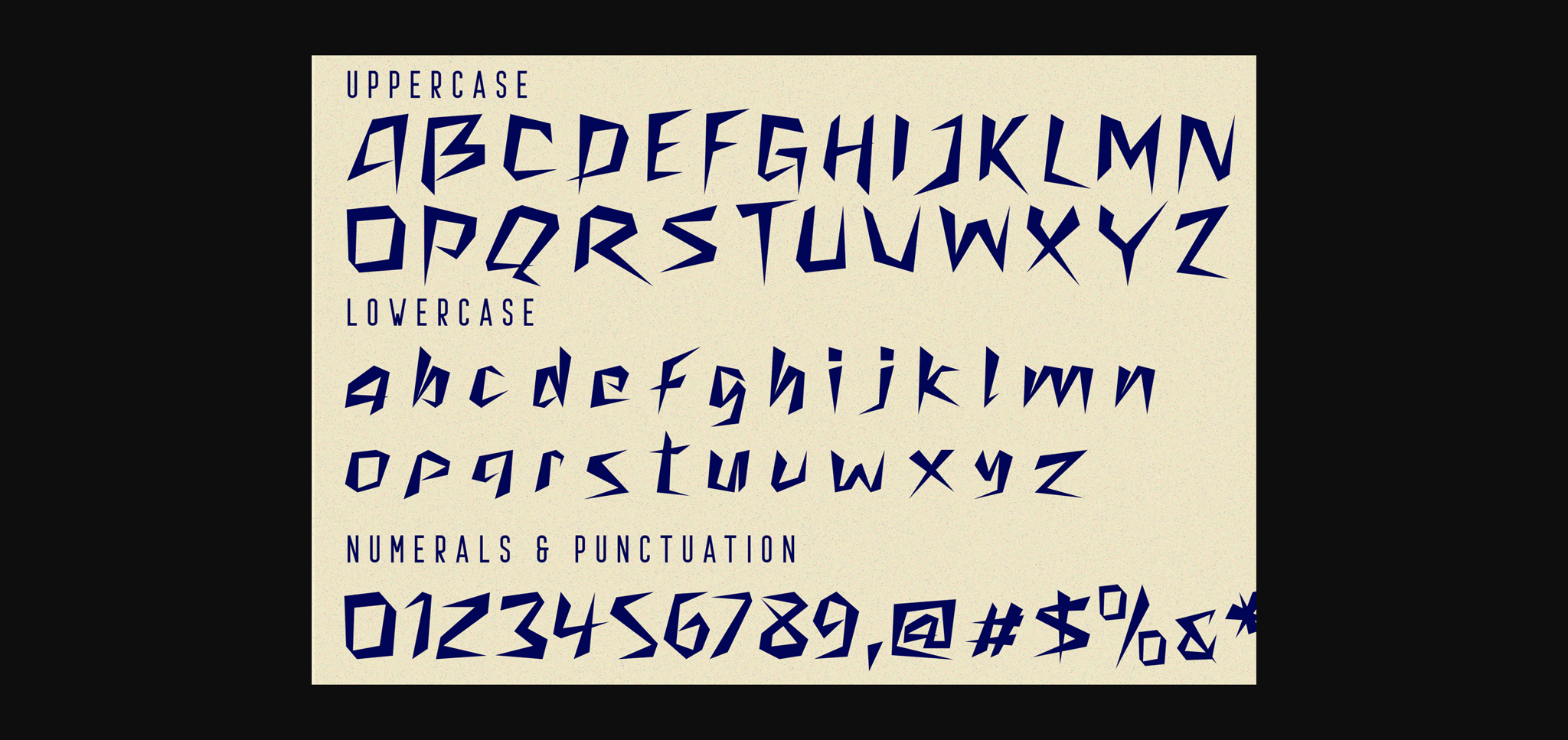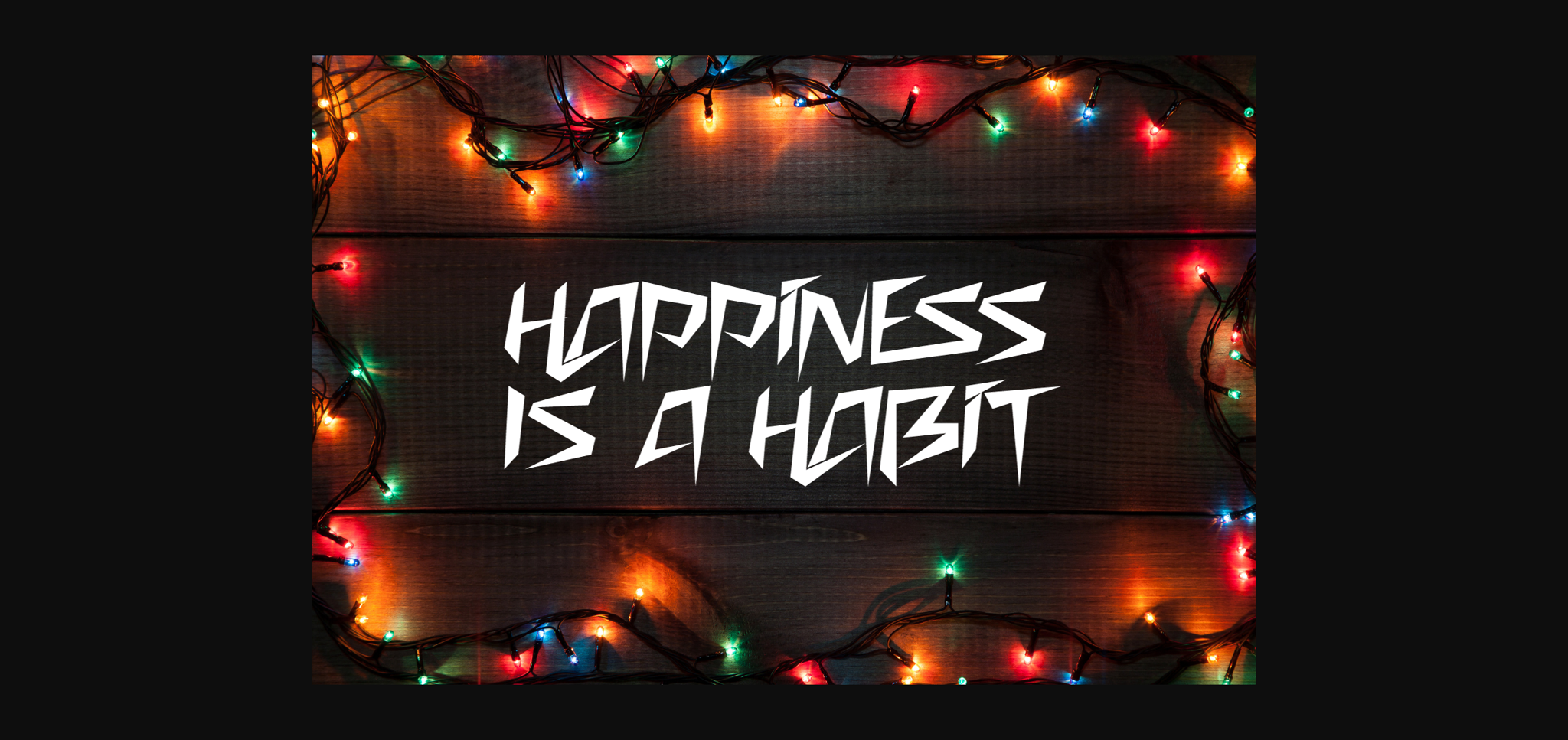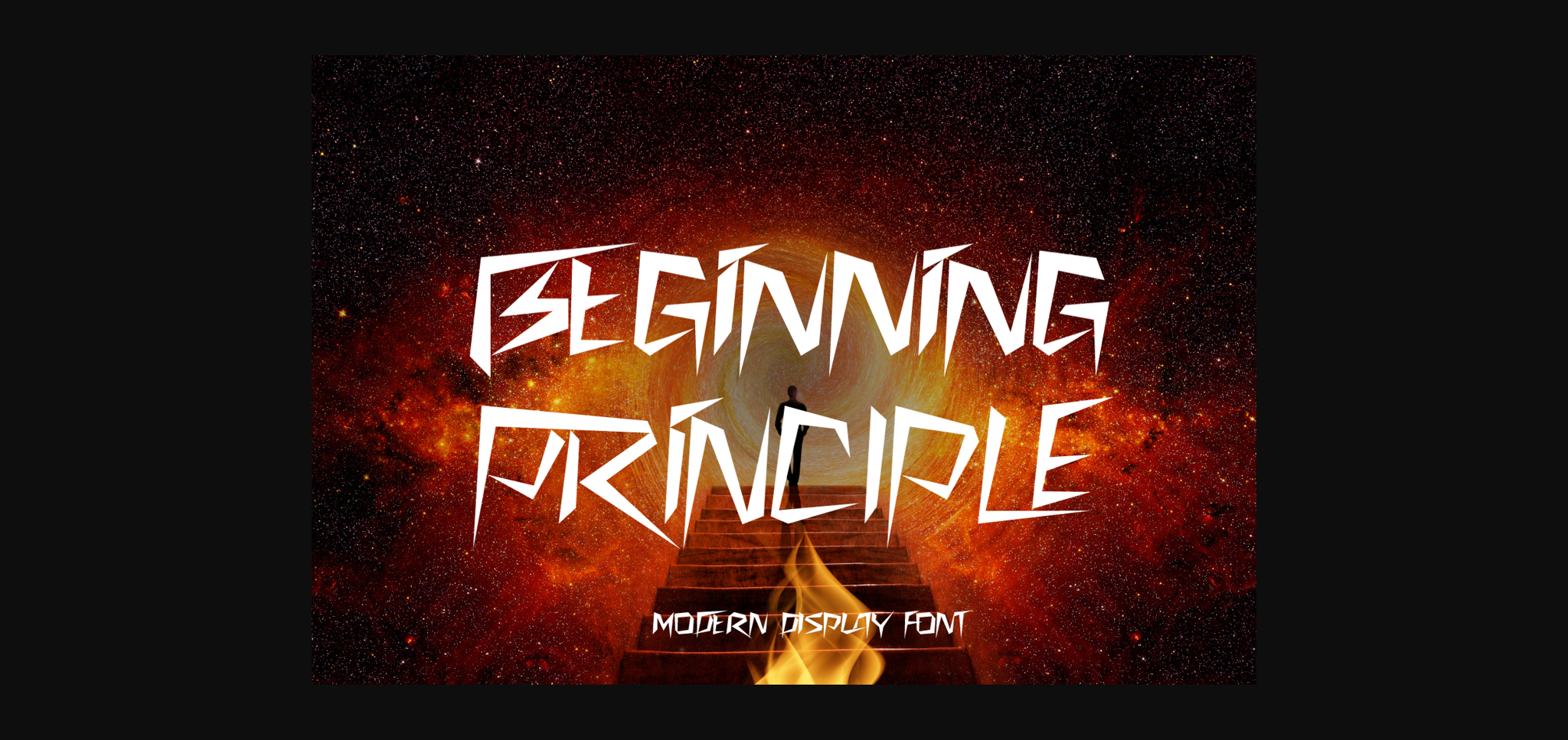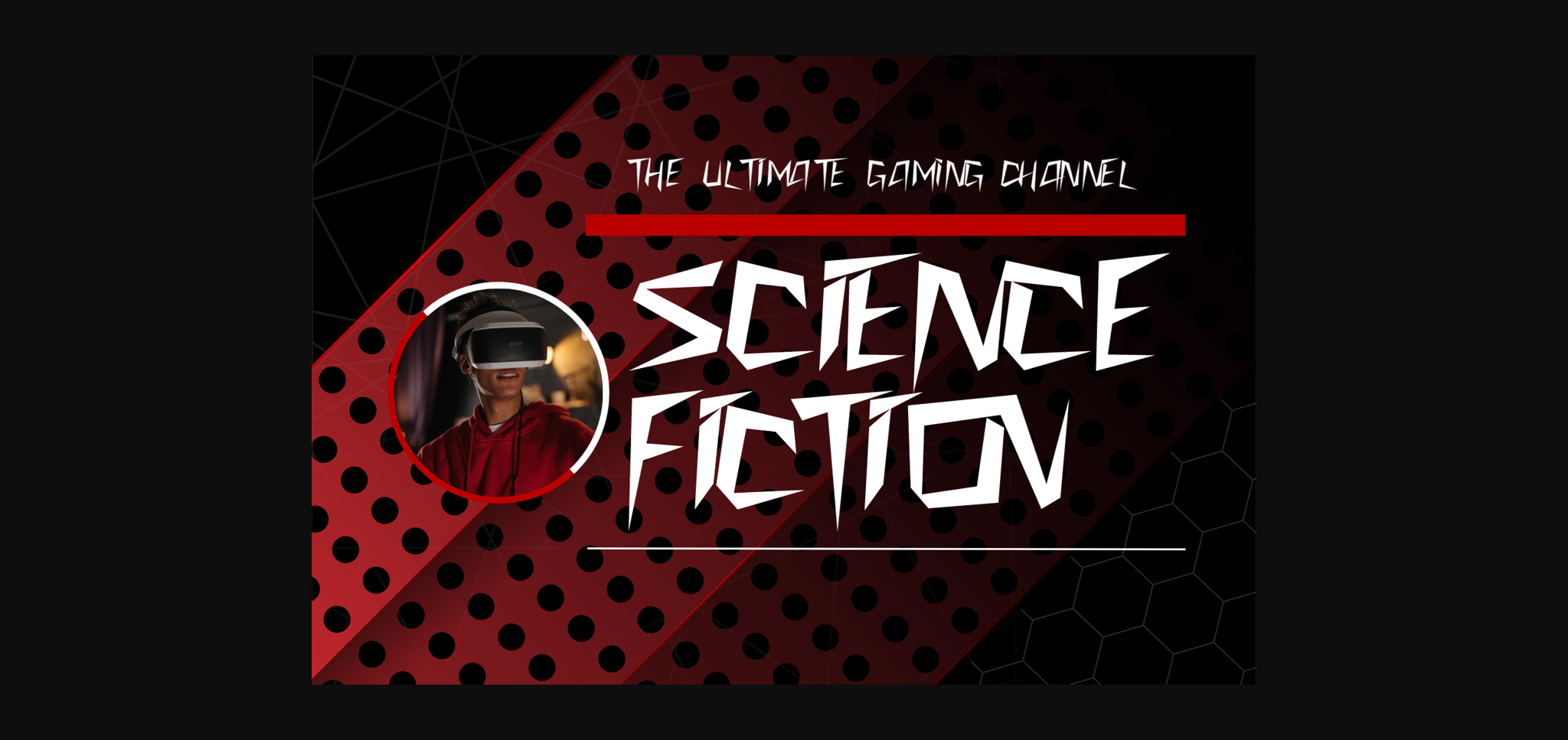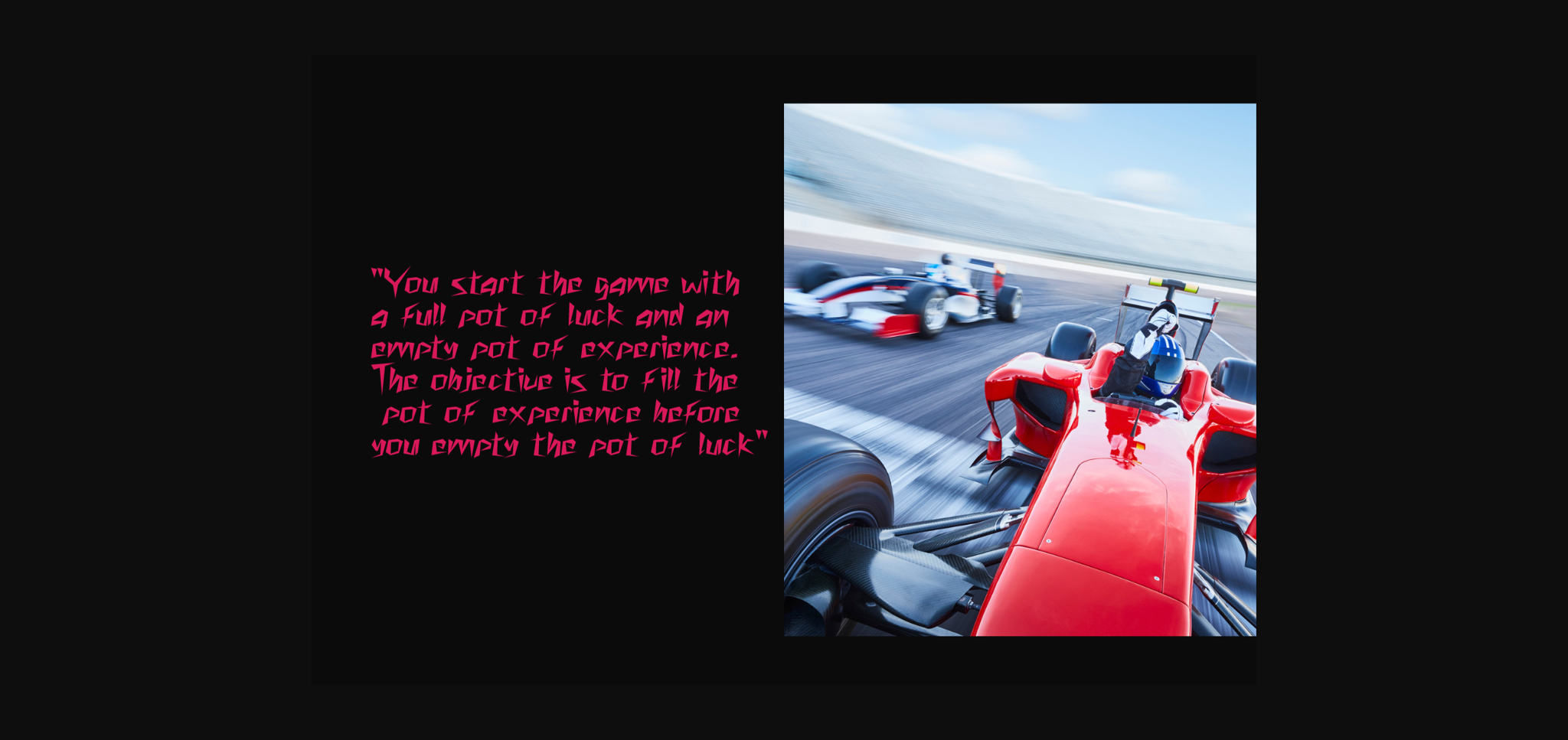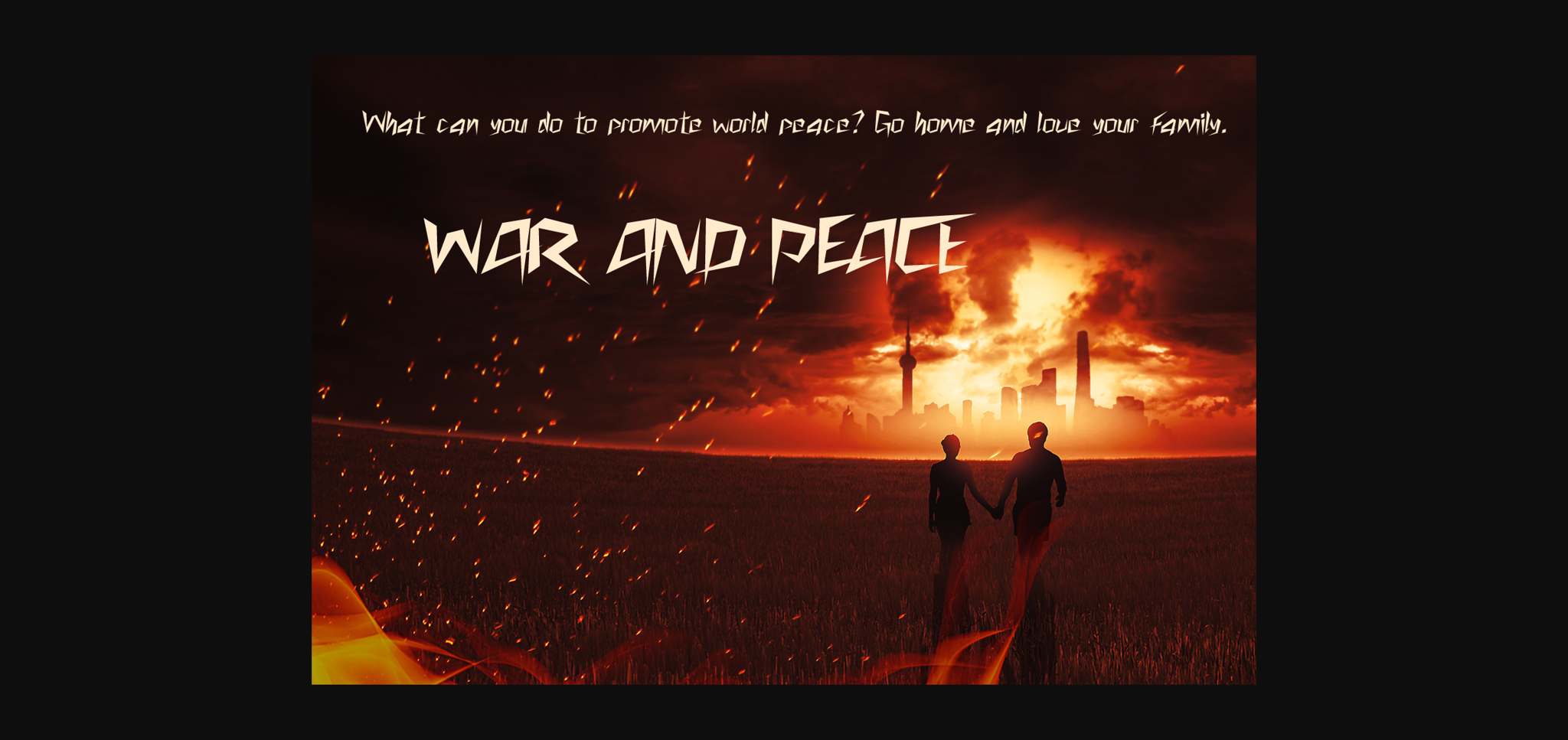
About Beginning Principle Font
Introducing Beginning Principle, an angular techno typeface inspired by the diagonal strokes, bringing a retro, arcade-style aesthetic to your designs. But what sets this font apart from other typefaces is its non-traditional, scientific sensibility. Sharp diagonal cuts and anomalistic gaps inject your words with a sense of experimentation and innovation, perfect for companies on the cutting edge of technology.
BEGINNING PRINCIPLE was built with OpenType features and includes 100 ligatures, alternate, numbers, punctuation, and it also supports other languages.